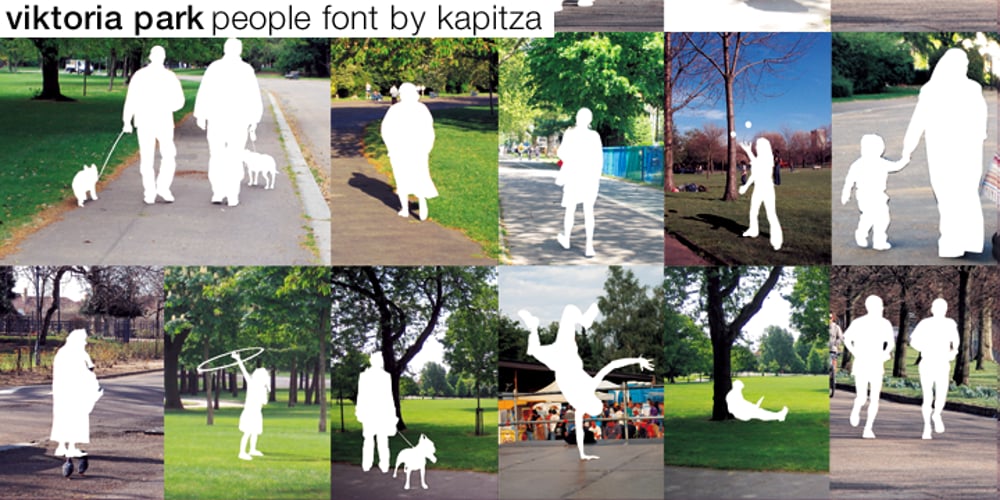
Victoria Park
Victoria Park font
Victoria Park Font Family was designed by published by kapitza. Victoria Park contains 1 styles and family package options. Inspired by the diverse and dynamic neighborhoods around their studio, kapitza’s most recent work is about observing and recording the transient nature of inner-city populations. This visual research results in vibrant sets of silhouettes with site-specific names like ‘Liverpool Street’, ‘Victoria Park’ and ‘Brick Lane’. This ongoing project charts the visual component of local transformation, managing to reflect something that is deeper, invisible and beyond the surface. These fresh, creative typologies make sense of sensory overload. Though stark and simple, these silhouettes make the increasingly complex connections between people (s) and place(s). Somehow identities are represented in the absence of context and locations are curiously referenced without surroundings. By focusing on an area’s inhabitants, their work highlights distinct subtleties regarding the interplay time and place.